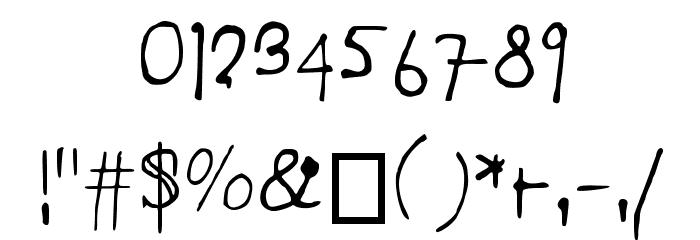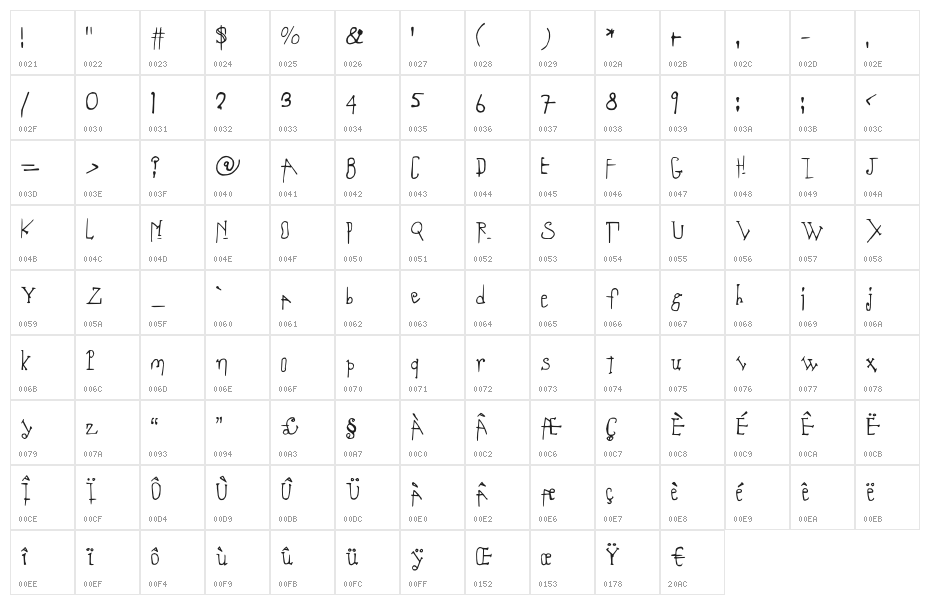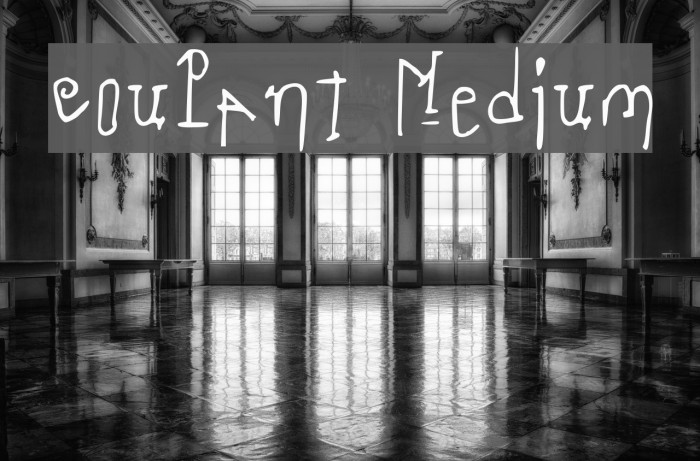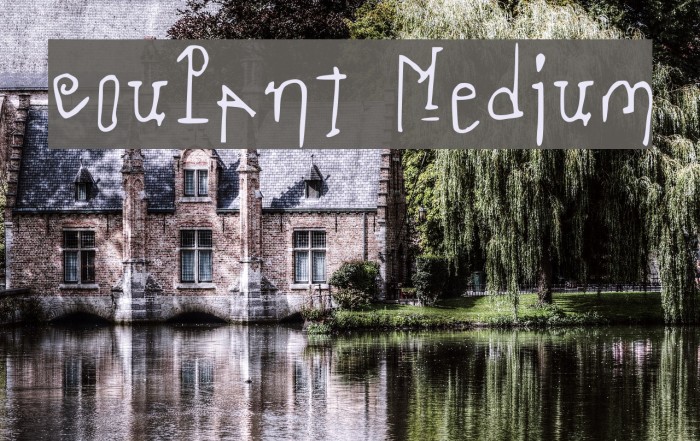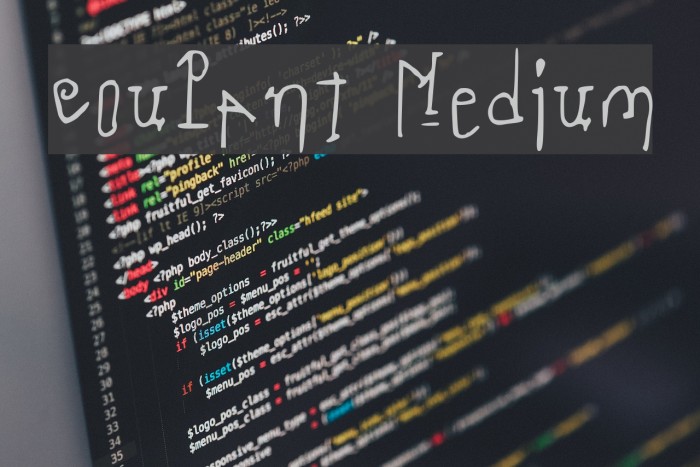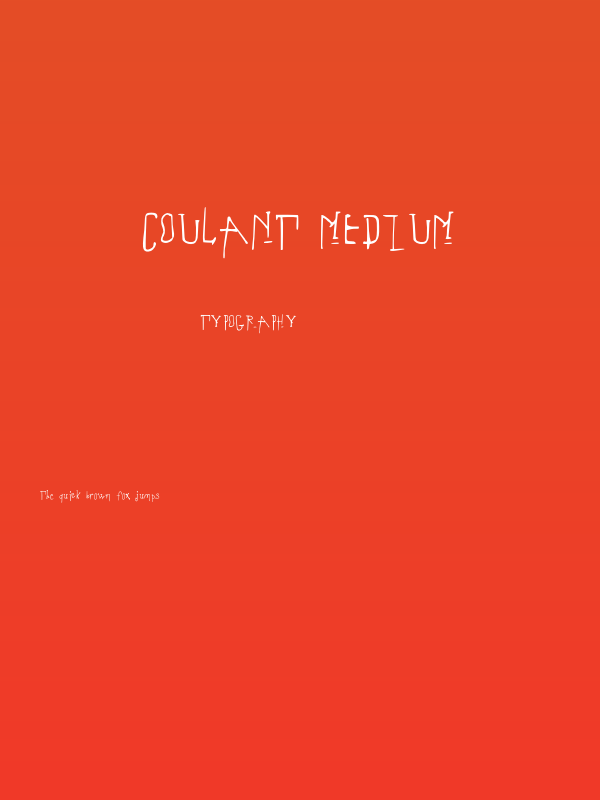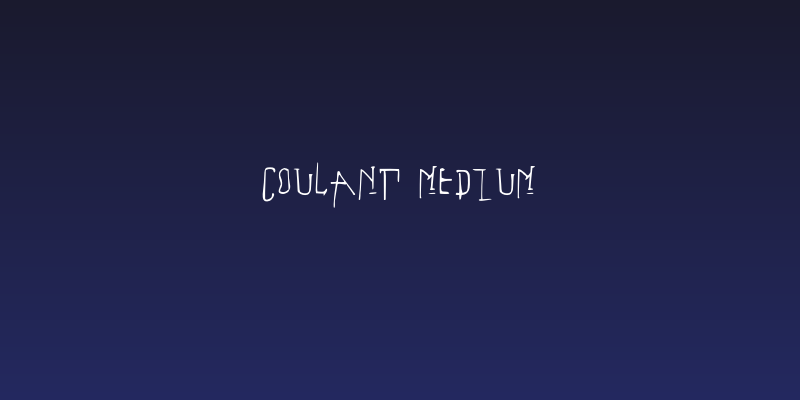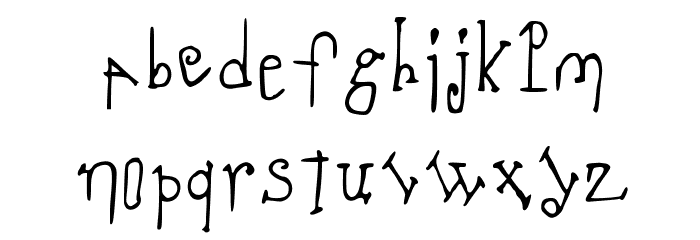
coulant Medium Font
coulant Medium Description
This font features a playful and whimsical design, characterized by its irregular and slightly distorted letterforms. The strokes vary in thickness, giving it a hand-drawn appearance that adds a unique charm. The uppercase letters are tall and narrow, while the lowercase letters maintain a consistent style with quirky curves and angles. Numbers and special characters follow the same playful aesthetic, making this font suitable for creative and informal projects. Its distinct style captures attention and conveys a sense of fun and creativity.
| Proposed Projects | Ideal for children's books, creative posters, playful branding, and artistic invitations. |